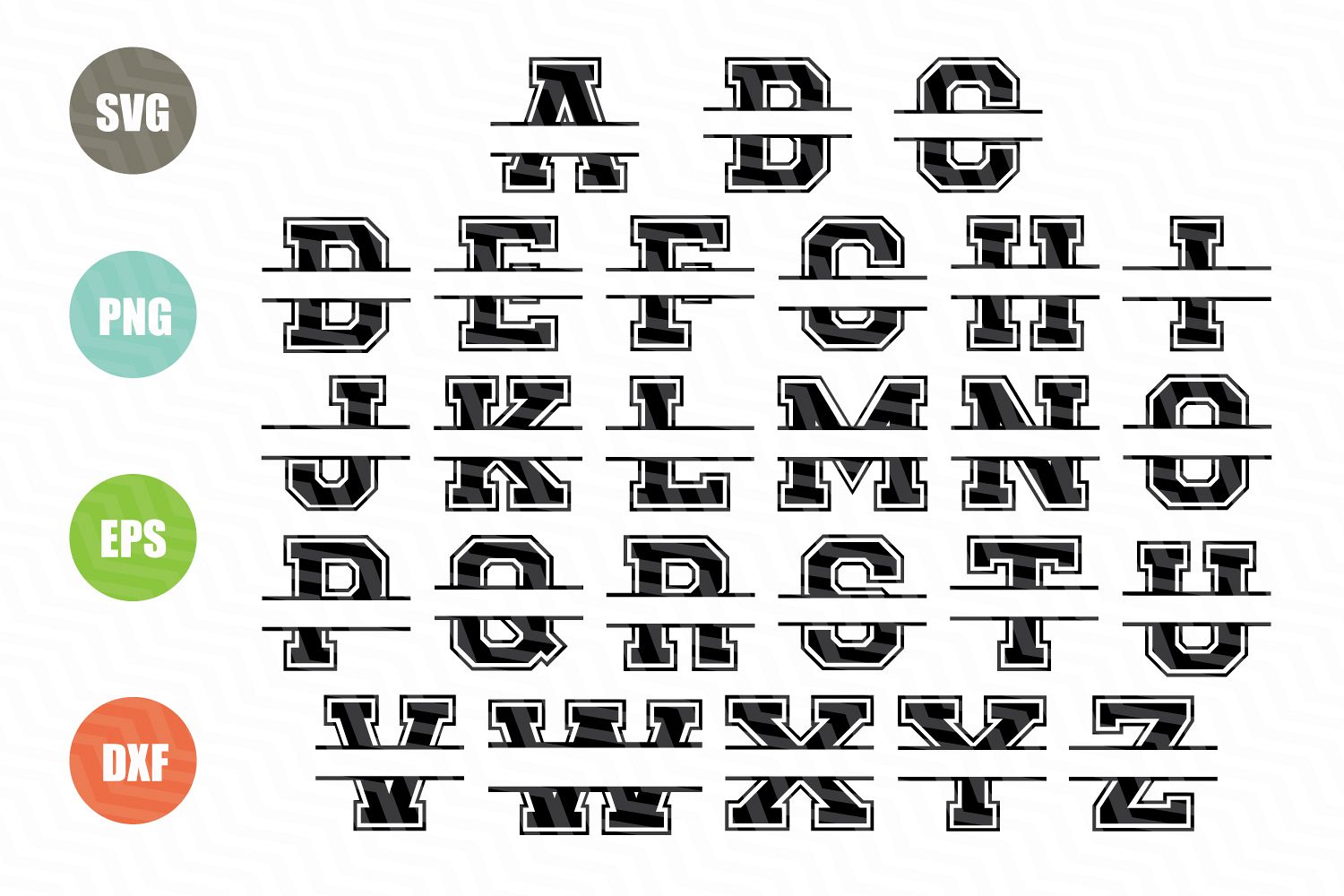
Varsity Split Font Svg, Full Alphabet + Numbers
This "Varsity Split Font Svg, Full Alphabet + Numbers '"  files are perfect for shirts,mugs,home decor,tumblers,cards,party decor and more.